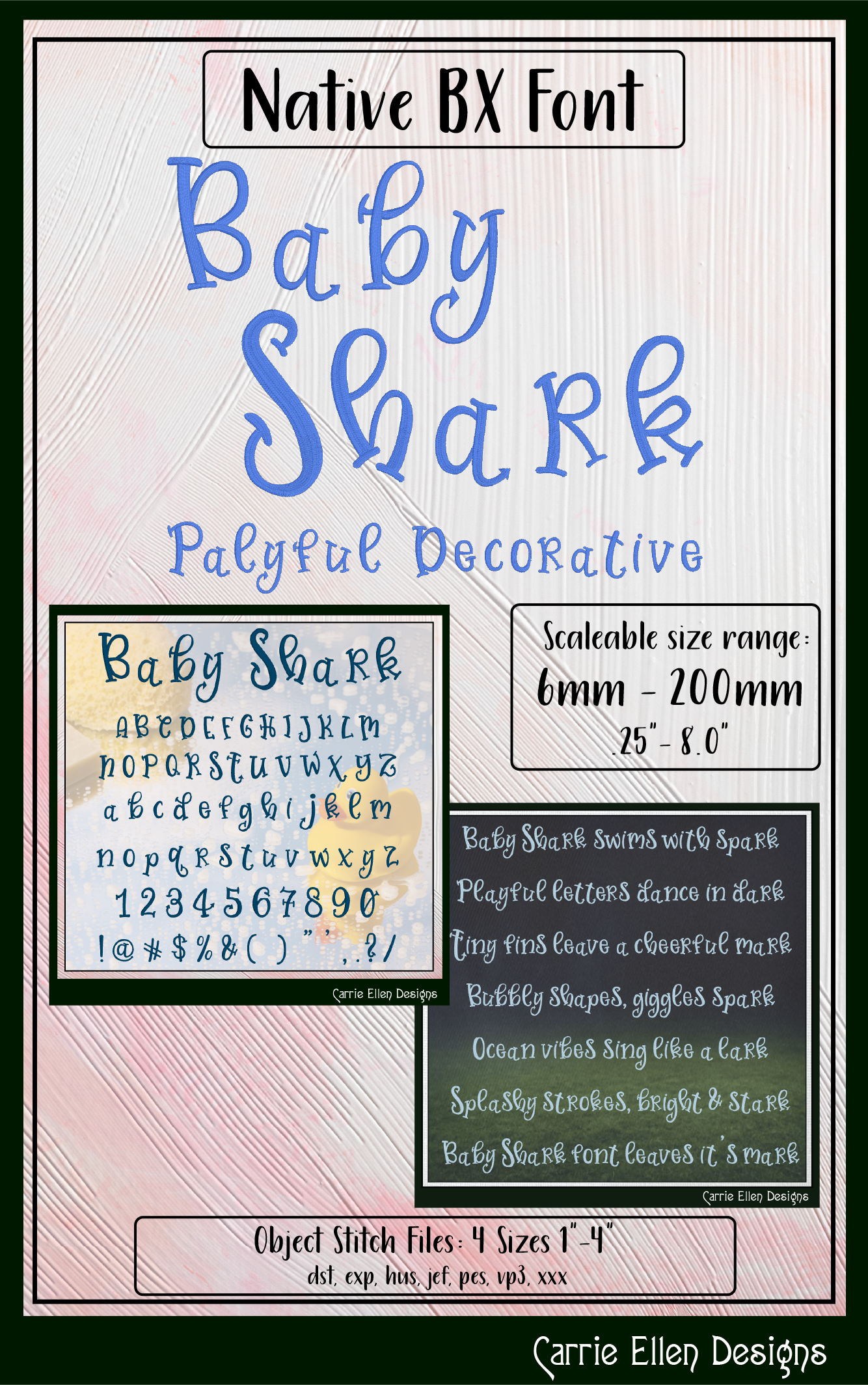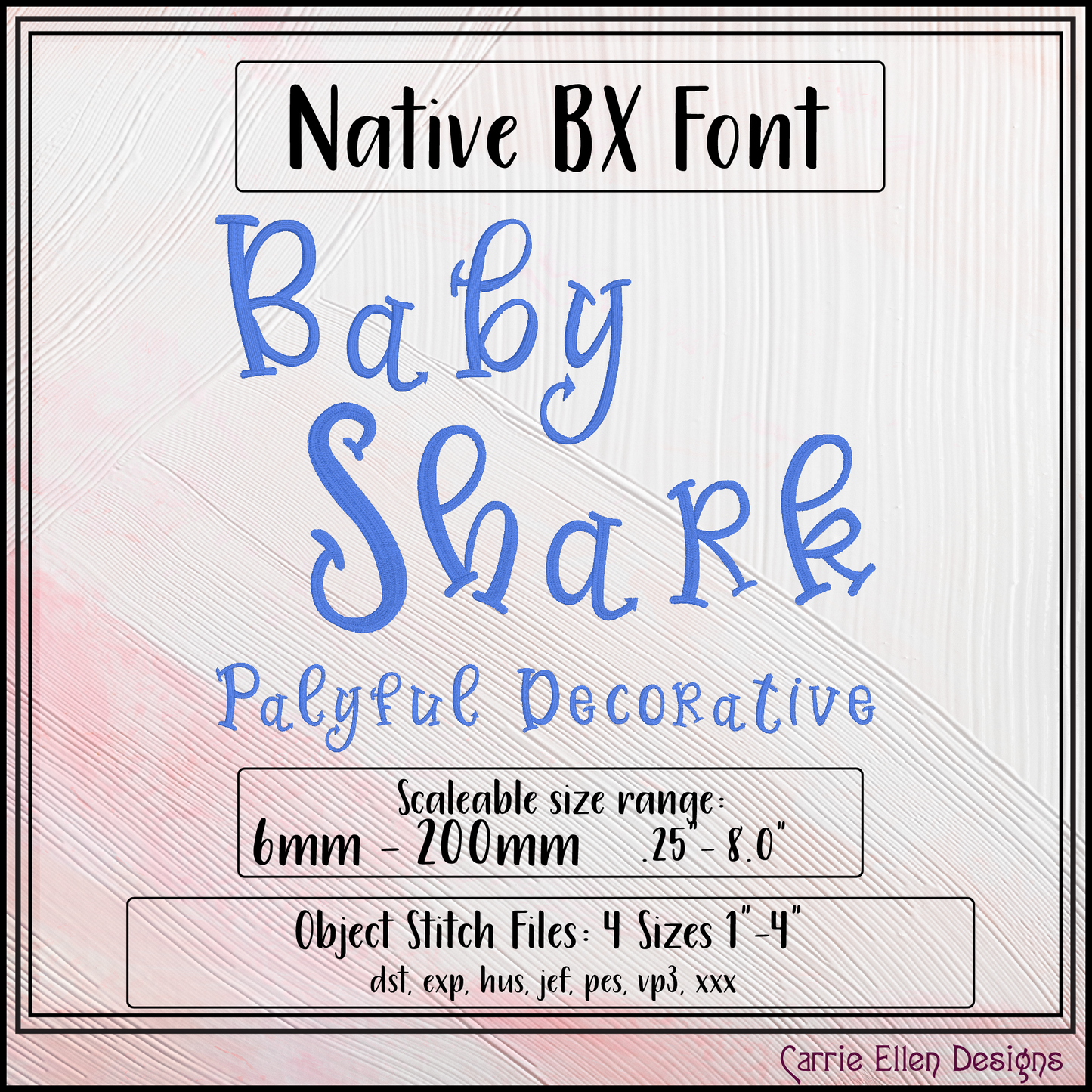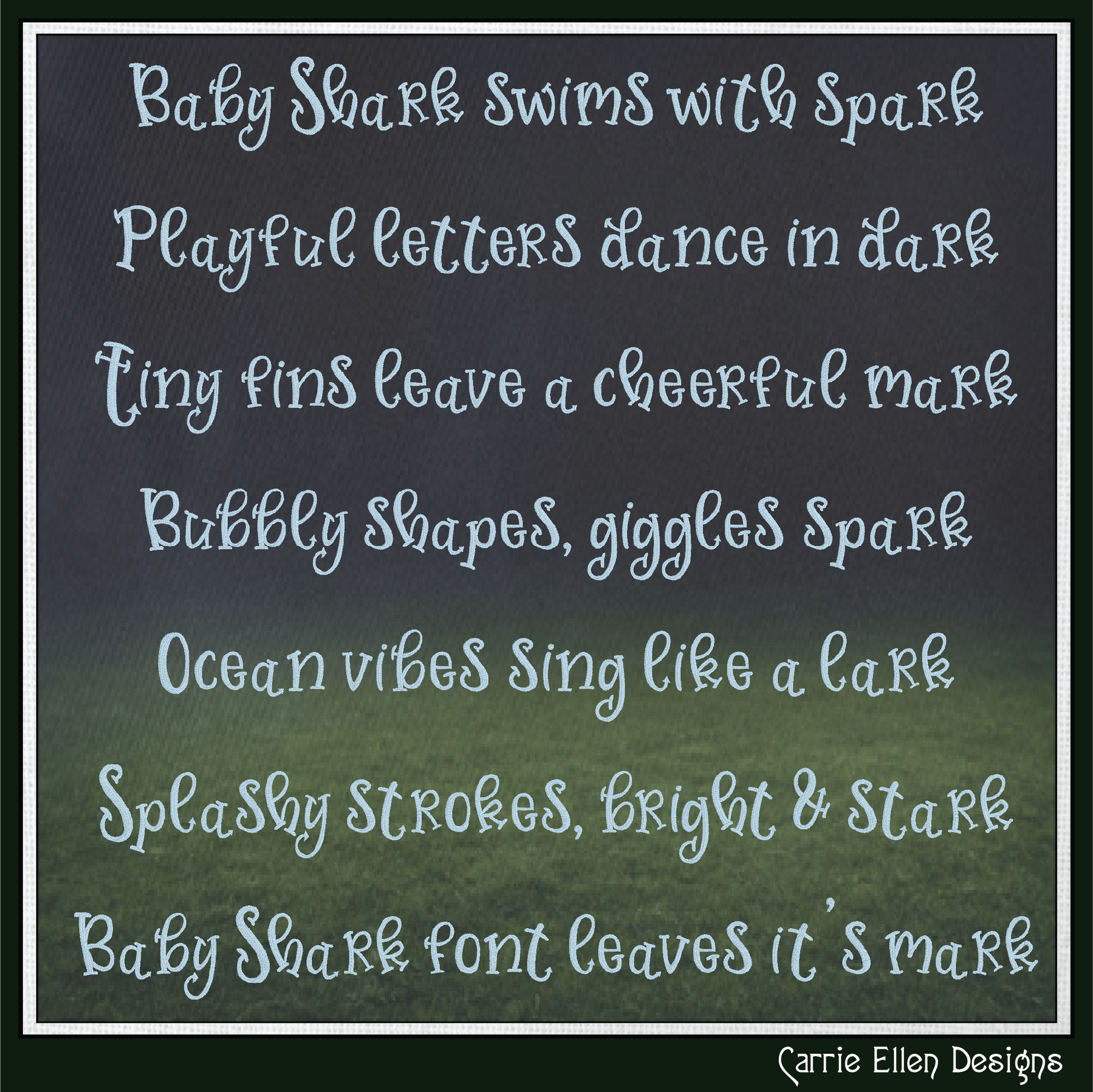
Baby Shark Playful Decorative BX Font & Lettering Stitch Files |Native Embrilliance Machine Embroidery Font (4048)
Playful, bubbly, and full of fun 🐠✨
The Baby Shark Playful Decorative BX Font is a cheerful embroidery alphabet designed to bring energy and personality to your projects. With rounded shapes and whimsical styling, this font is perfect for kids’ items, birthday gifts, and bright, happy designs.
Digitized as a native BX font for Embrilliance, this font lets you type directly on your screen just like a keyboard—making personalization fast, easy, and fun.
Whether you're creating for little ones or adding a playful touch to your embroidery, this font makes every project feel joyful and eye-catching.
Font Features
• Clean satin stitch columns
• Balanced stitch density for smooth results
- Uppercase & lower case letters and numbers
- Basic punctuation
- Consistent styling across all characters